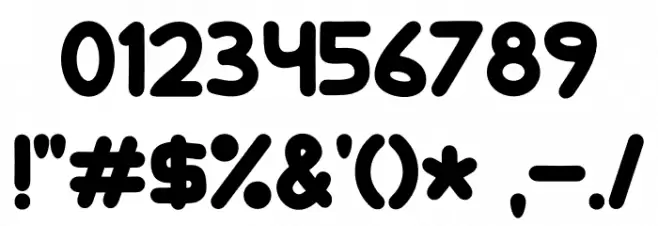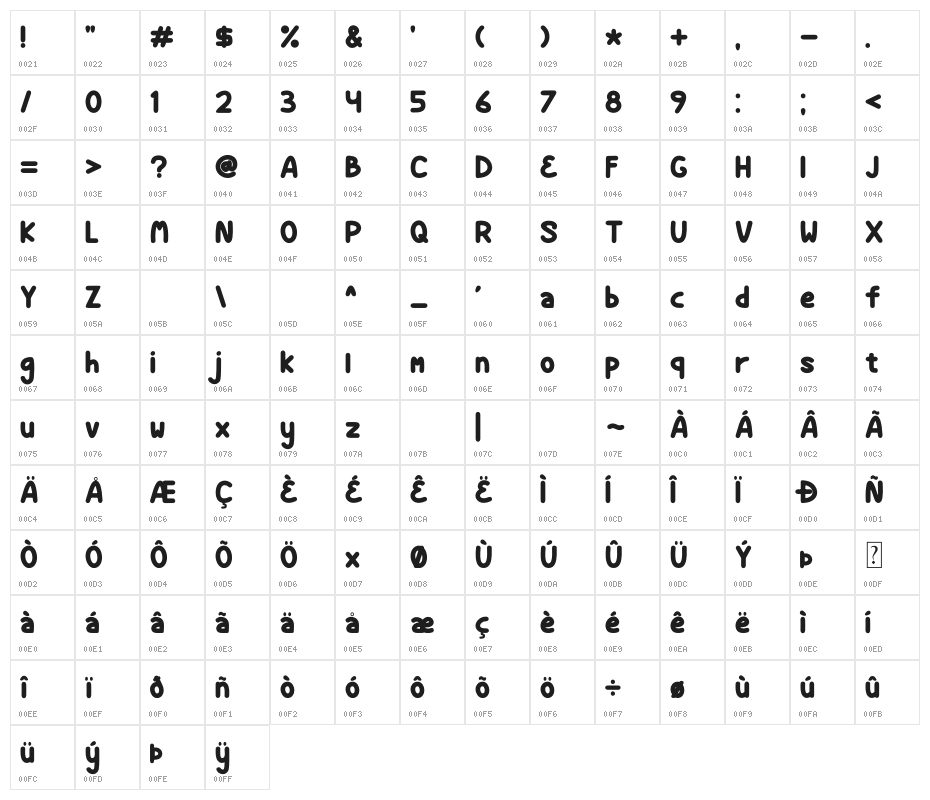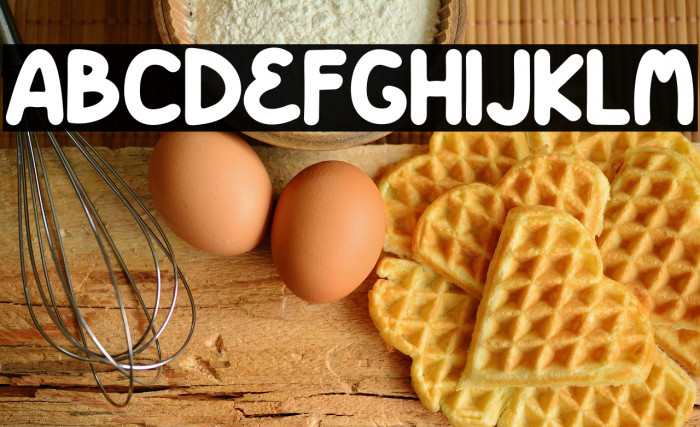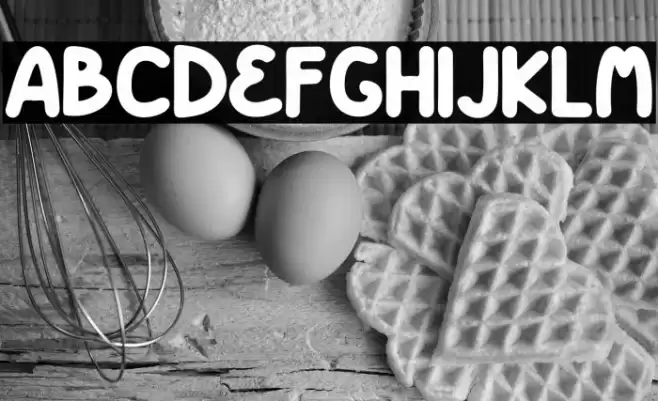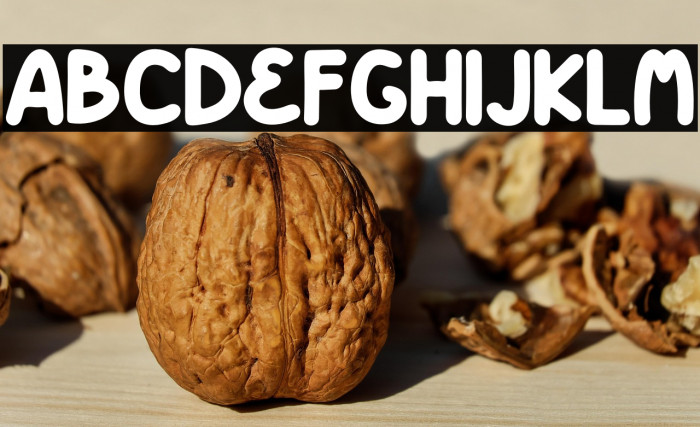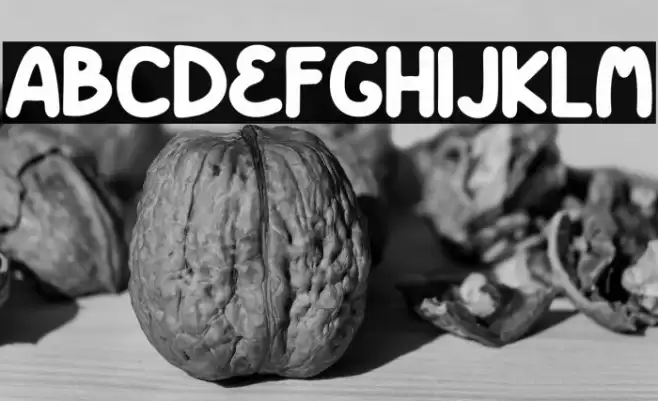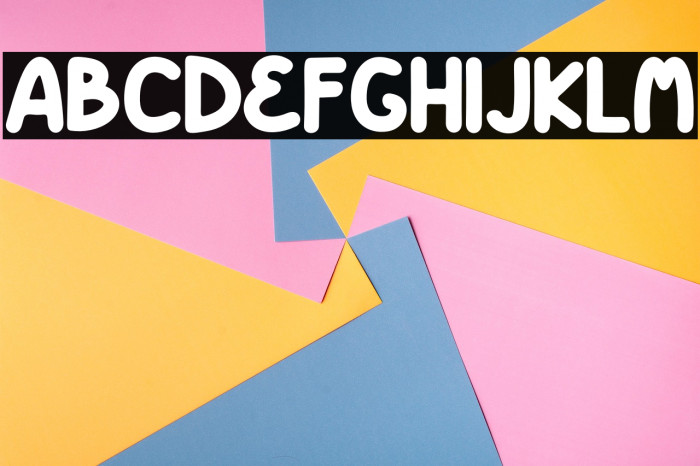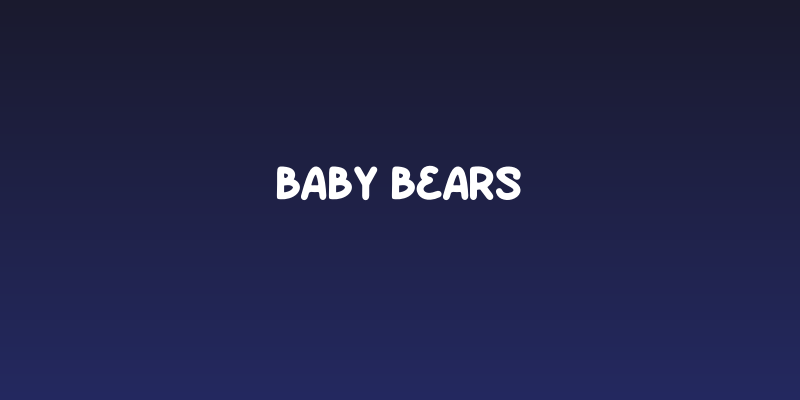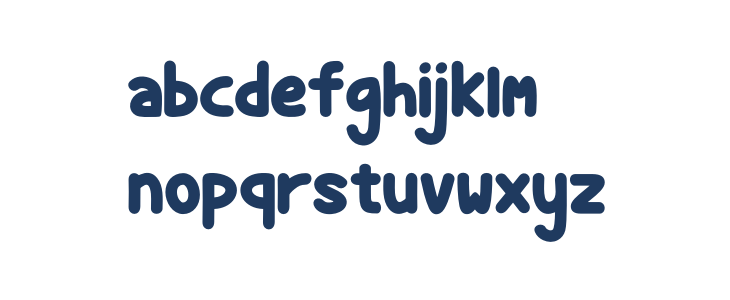
Baby Bears Font
Baby Bears Description
This playful and rounded font exudes a friendly and approachable vibe, perfect for children's materials or casual design projects. The characters are bold and slightly irregular, giving them a hand-drawn appearance that adds a touch of whimsy. The font maintains a consistent weight throughout, with smooth curves and a slightly condensed width. The character spacing is normal, ensuring readability while maintaining its playful nature. The overall style is modern and decorative, making it suitable for projects that require a fun and informal touch.
| Proposed Projects | Ideal for children's books, playful branding, casual invitations, and fun posters. |